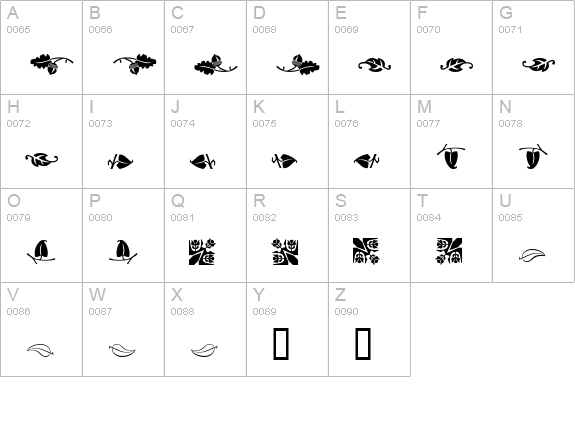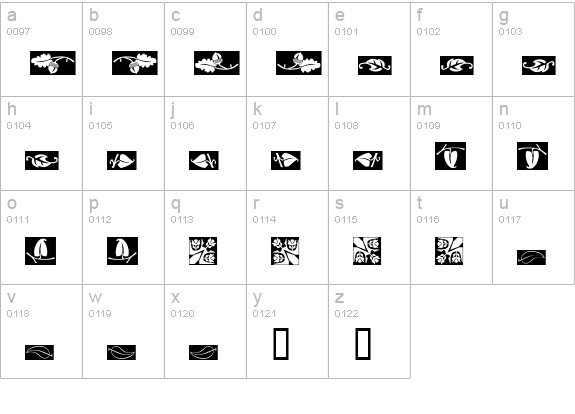
Ludlow Dingbats Font Details
Introducing Ludlow Dingbats, a whimsical and versatile font that adds a touch of fun to any design project. This unique typeface features a collection of charming and quirky symbols and icons, perfect for adding visual interest and personality to your creations. From playful doodles to decorative elements, Ludlow Dingbats offers an array of design possibilities. Best of all, Ludlow Dingbats is completely free! You can download this delightful font at FontsMarket.com and start incorporating its charming characters into your designs today. Whether you're working on a poster, invitation, or social media graphic, Ludlow Dingbats is sure to bring a smile to your audience's face. Add a touch of whimsy to your projects with Ludlow Dingbats and let your creativity shine!